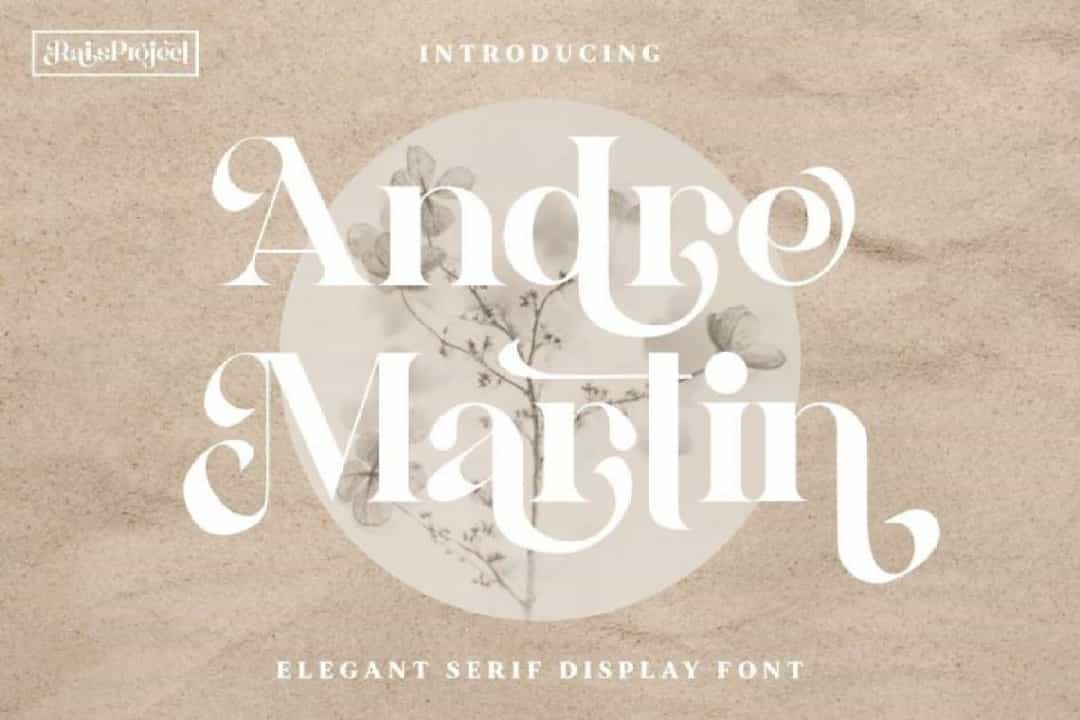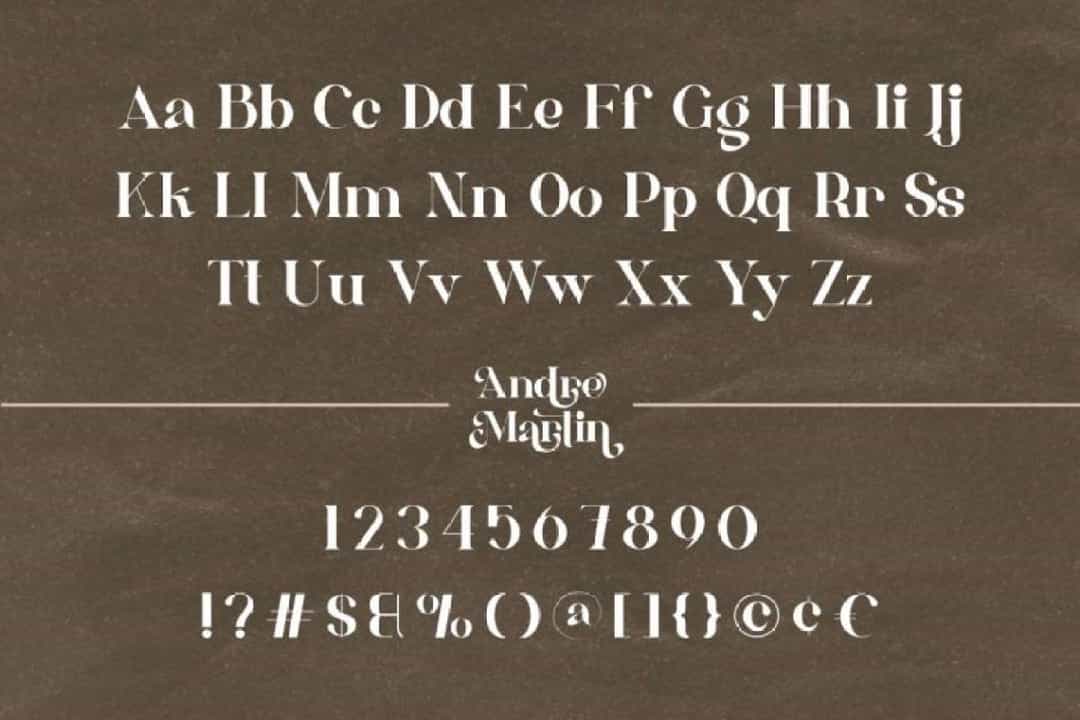
Discover Andre Martin Font, part of the Serif Display collection—a versatile and unique font perfect for adding a personal touch to your projects. Download it for free and enjoy crafting designs with style, from invitations to social media posts. This font is available exclusively for personal use, giving you the freedom to create without limits. Unlock your creativity with Andre Martin Font today!
Andre Martin Font is an elegant serif display typeface with an exquisite appearance on each line. Each letter boasts flower-like curvatures to complete its beauty, creating an eye-catching display font perfect for boutique cards, business cards, cosmetic jewelry branding and brand identification, magazine covers fragrance, signage or other applications! This font can also be found as signage at retail locations!